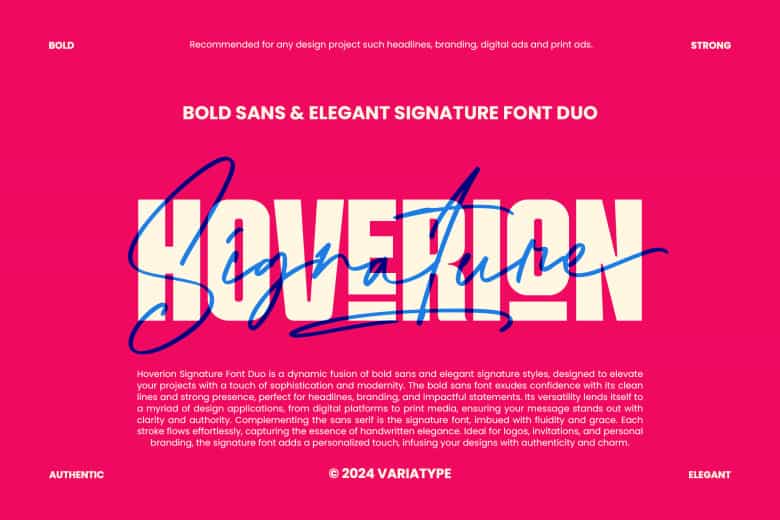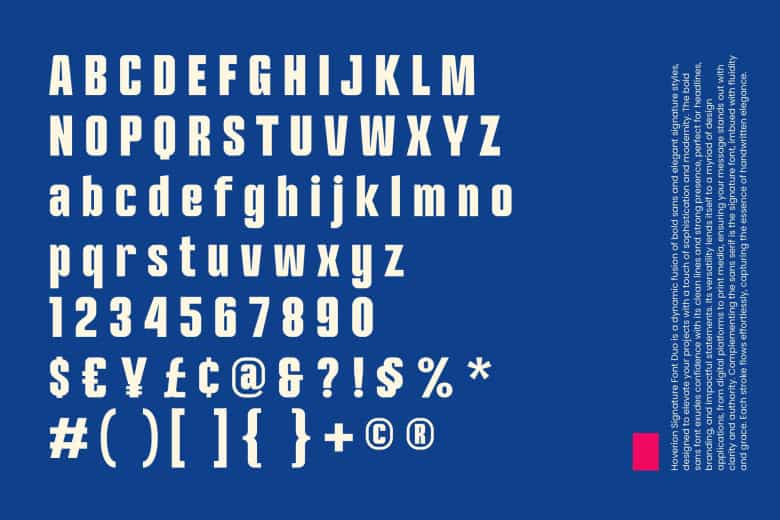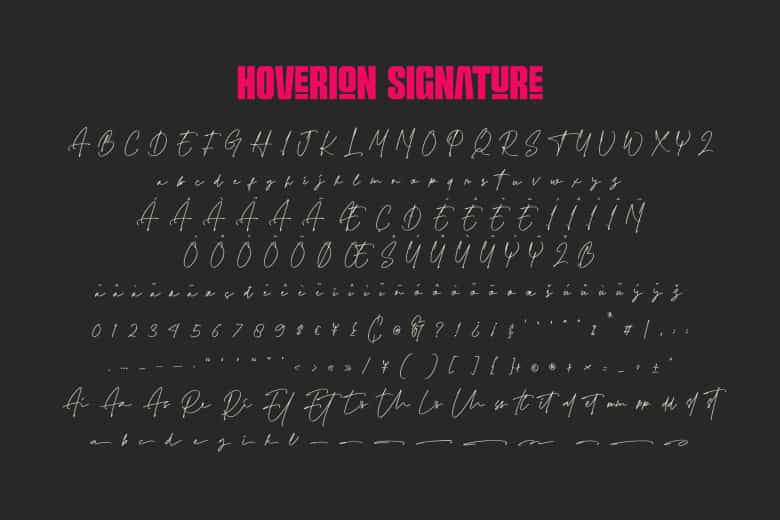
Hoverion Signature Font Duo
Discover Hoverion Signature Font Duo, part of the   Sans Serif Signature collection—a versatile and unique font perfect for adding a personal touch to your projects. Download it for free and enjoy crafting designs with style, from invitations to social media posts. This font is available exclusively for personal use, giving you the freedom to create without limits. Unlock your creativity with Hoverion Signature Font Duo today!
Hoverion Signature Font Duo is a combination of the powerful and bold sans and the elegant signature fonts that will enhance any project you are working on. The sans font with bold styling looks professional with its simple lines and dominating appearance, ideal for titles, logos, and call to action phrases.